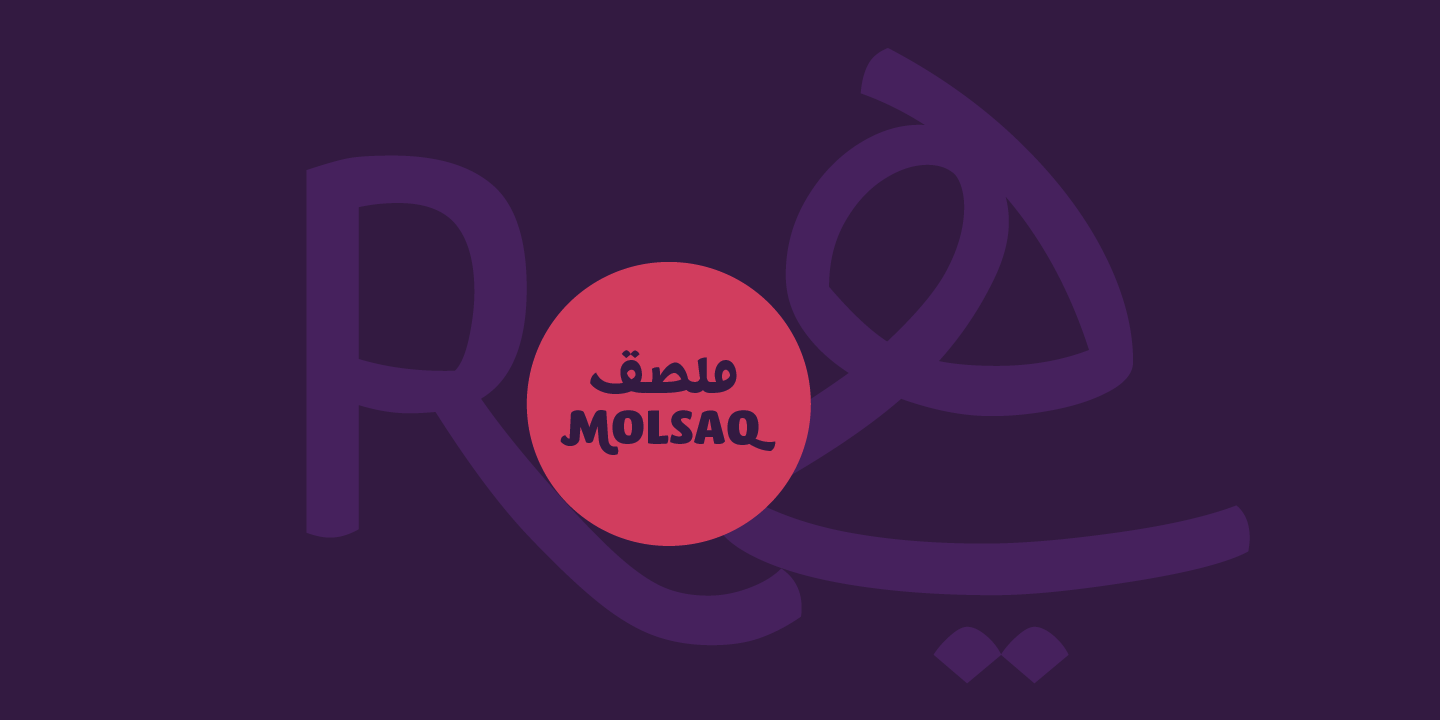
The Molsaq Latin Font is perfect for various design applications including Latin American cultural branding, Hispanic heritage festival graphics, Spanish language publications, multicultural event promotions, Latin dance studio logos, international education materials, cultural exchange programs, and authentic Latino community designs. This vibrant typeface works exceptionally well for Latin cultural brands and projects requiring authentic Hispanic character with multicultural appeal.
What makes Molsaq Latin Font exciting is its vibrant and cultural character that instantly celebrates the rich heritage of Latin American traditions and captures the passionate spirit of Hispanic culture with authentic pride. The font features expressive letterforms with Latin flair and cultural aesthetics that evoke feelings of passion, community, and cultural celebration. Its vibrant styling and Latin-inspired appearance make it perfect for brands that want to honor Hispanic heritage and connect with Latino audiences who appreciate authentic cultural representation and community pride.
The Molsaq Latin Font family includes multiple weights and styles, offering designers flexibility for diverse Latin cultural applications. The family typically consists of regular, bold, light, and decorative variations, along with Latin-inspired ornamental elements and cultural ornaments, providing comprehensive coverage for projects that need both authenticity and visual celebration across different Hispanic contexts.
Whether you're working on Latino community services, Hispanic cultural organizations, or Latin American marketing campaigns, Molsaq Latin Font Free Download delivers the authentic quality and visual passion that modern Latin cultural designers seek. The font's Hispanic-inspired design combined with its excellent readability makes it an essential tool for creating compelling visual communications that celebrate Latin heritage and bring the vibrant spirit of Latino culture to life.